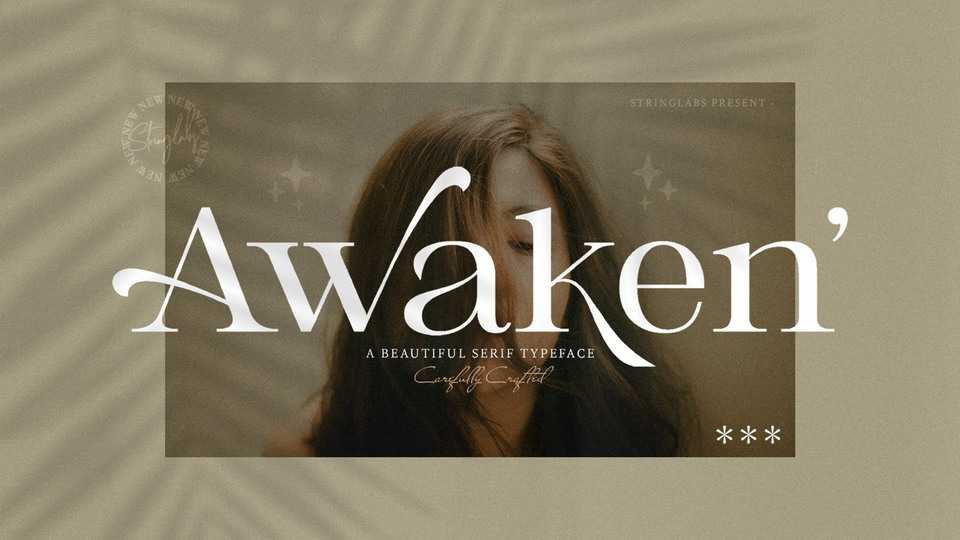
Download Awaken font, a modern decorative serif typeface. Awaken can easily be matched to an incredibly large set of projects, so add it to your creative ideas and notice how it makes them stand out.